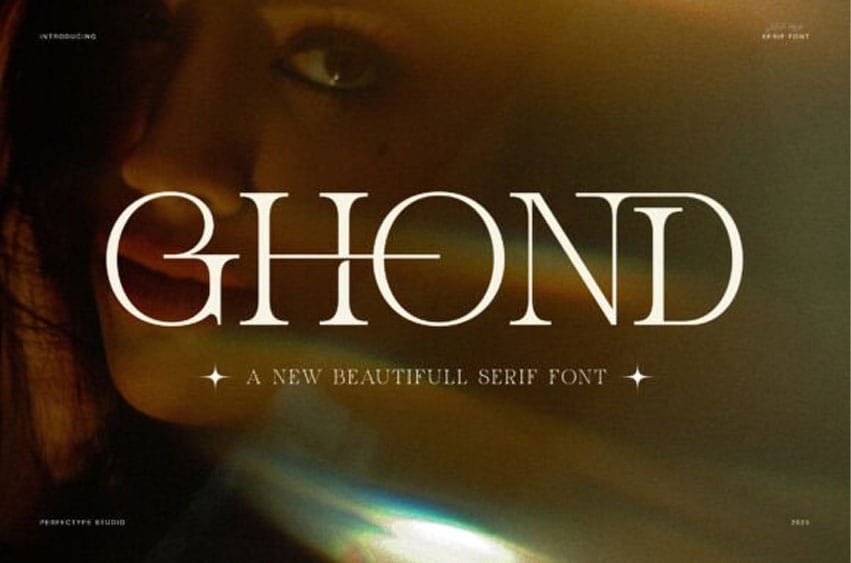
Ghond Font is a modern, elegant serif font that combines luxury, minimalism, and precision. Each letterform features graceful curves and geometric balance, making it perfect for designers seeking a refined, high-end aesthetic. The font’s clean structure and unique ligatures give it a distinctive look that enhances sophistication and style.
Because of its versatility, Ghond Serif Font fits beautifully in a wide range of design applications. It adds elegance to brand identities, magazine layouts, and luxury packaging while maintaining perfect readability. Moreover, its smooth proportions and balanced serifs make it ideal for both digital and print use.